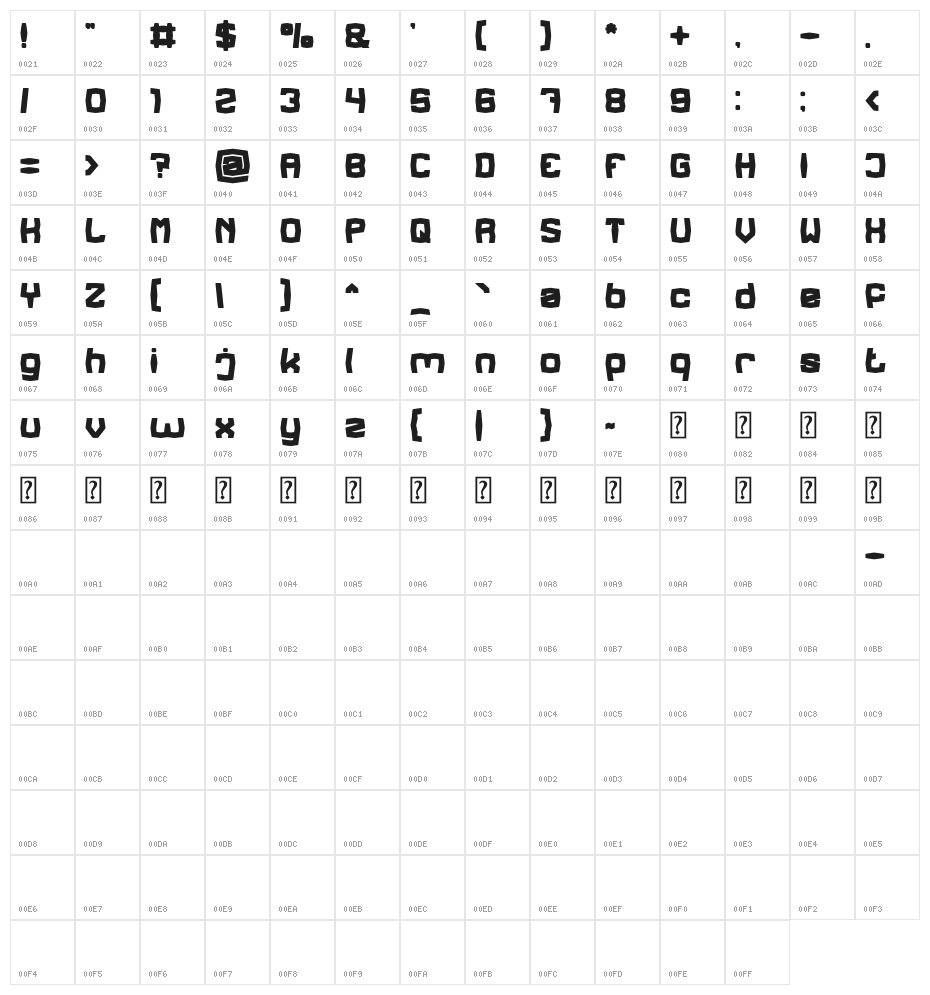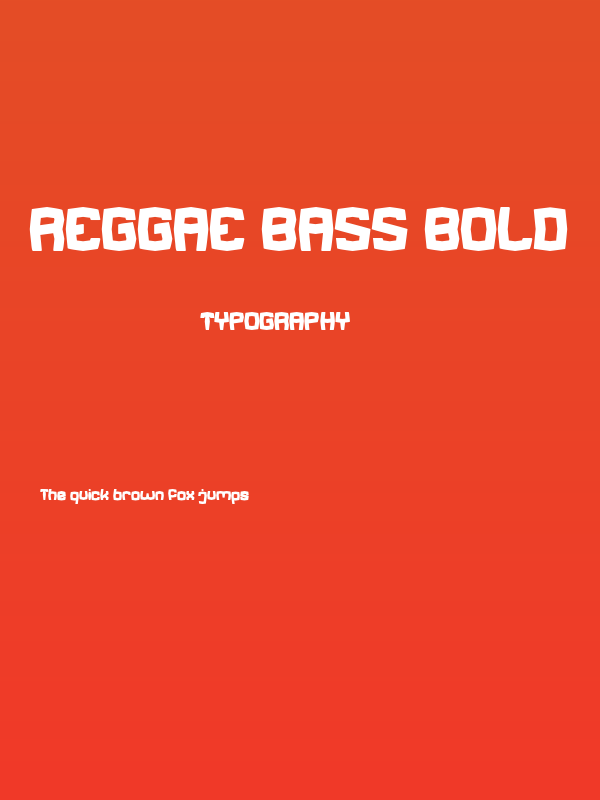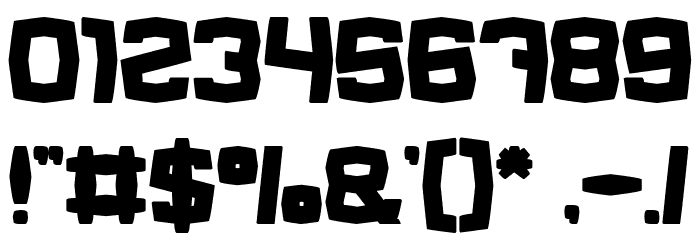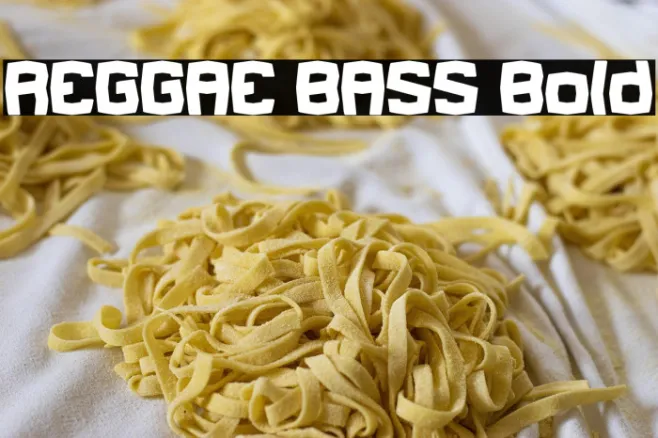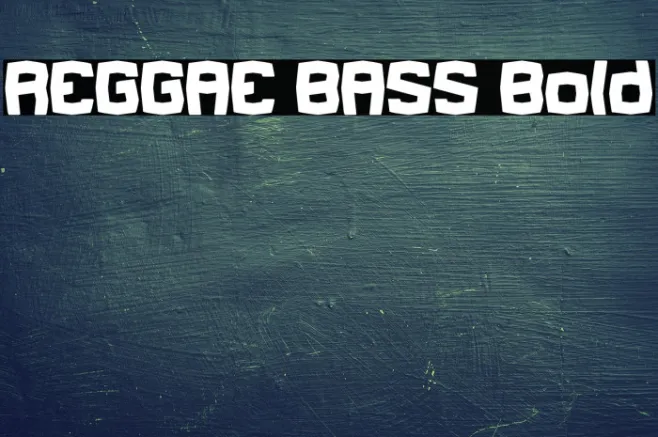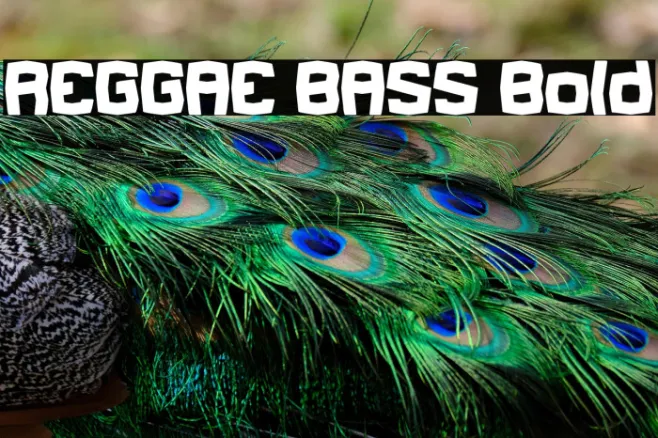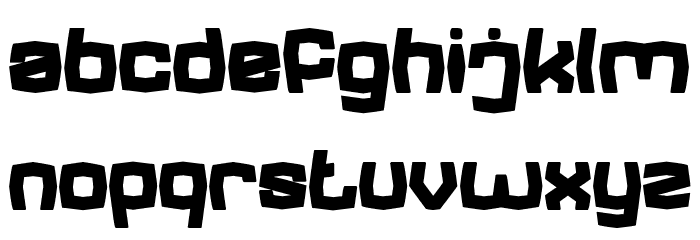
REGGAE BASS Bold Font
REGGAE BASS Bold Description
This font features a bold and rugged style with a distinctively irregular and hand-drawn appearance. The characters are thick and have a playful, almost cartoonish quality, making them stand out with a unique personality. The edges are uneven, giving it an organic feel that is both dynamic and expressive. This font is designed to capture attention with its boldness and unconventional shapes, making it ideal for creative and informal projects. The uppercase and lowercase letters maintain a consistent style, while the numbers and special characters complement the overall aesthetic, providing a cohesive look across all elements.